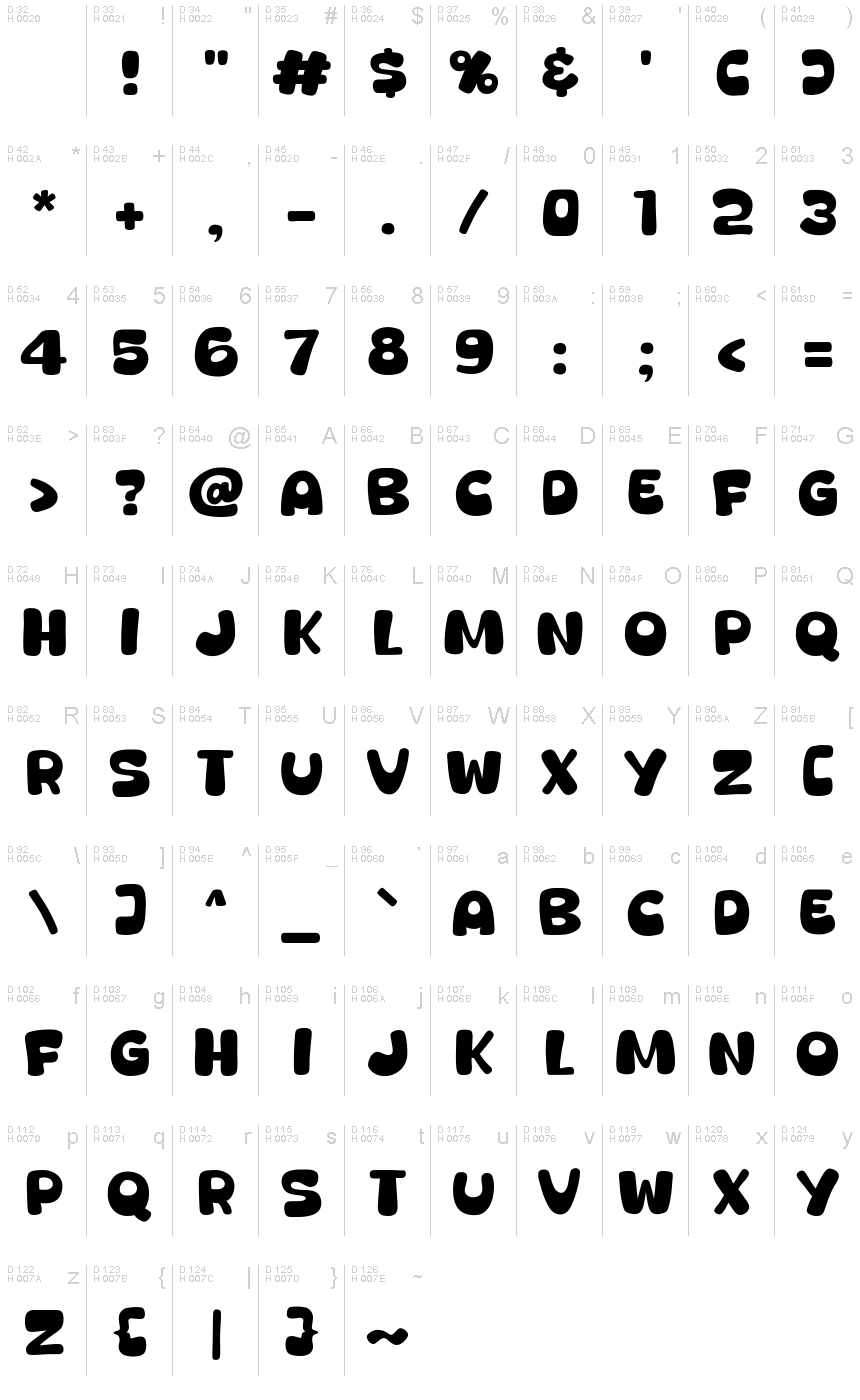
Dodol Sabang
Dodol Sabang by Khurasan is a captivating display font that exudes a whimsical, cartoon-inspired charm. Evoking a sense of playfulness and approachability, this bold typographic creation features distinctive rounded edges and a playful, hand-drawn aesthetic. The font's unique personality effortlessly captures the spirit of casual, lighthearted designs, making it a delightful choice for a wide range of projects.
Dodol Sabang's bold, confident strokes and distinct visual character make it an excellent selection for attention-grabbing headlines, playful branding, and eye-catching display text. Its versatility allows it to seamlessly integrate into a variety of design contexts, from vibrant children's illustrations to modern, quirky marketing materials, adding a touch of distinctive flair to any project.